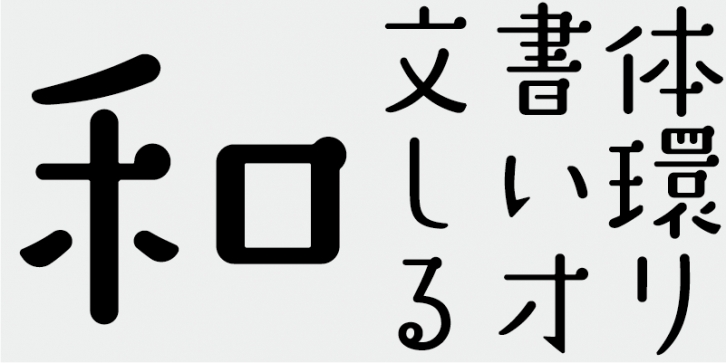
Easy conversation. Clear skies. A picnic. Mayuminwalk was designed with these peppy rhythms.
This font includes top 1,000 kanji characters chosen from character frequency tables made by newspaper companies, publishing houses and linguistic research institutes, plus 206 kana characters and punctuation marks.
In Japanese font production today, the 7,000 characters in the JIS standard are considered essential. But, do all fonts really need 7,000 characters? In the age of phototypesetting, far fewer characters were needed. FONT1000, a group of independent type designers, started with that simple question. We have selected the minimum 1,000 kanji (ideographic) characters needed for typesetting in Japanese and actively created typefaces and fonts to support it. This 1,000-kanji-character set was selected using character frequency data compiled by newspaper companies, publishing houses and linguistic research organizations, etc., and also includes kana syllabic characters and punctuation marks. FONT1000 was formed in 2001 with 25 designers and 25 typefaces. Today we have 130 typefaces and have grown to include nearly 40 members, making it possible to work on fonts with more characters.